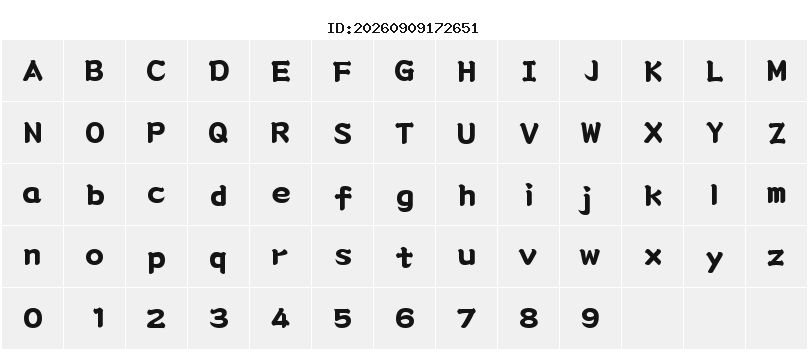
尔雅飞鸿楷书 Preview
• Font Name: 尔雅飞鸿楷书
About 尔雅飞鸿楷书.ttf
尔雅飞鸿楷书.ttf is a modern, elegant sans-serif font designed for ultimate readability and visual harmony. Perfect for branding, headlines, web design, and print materials.